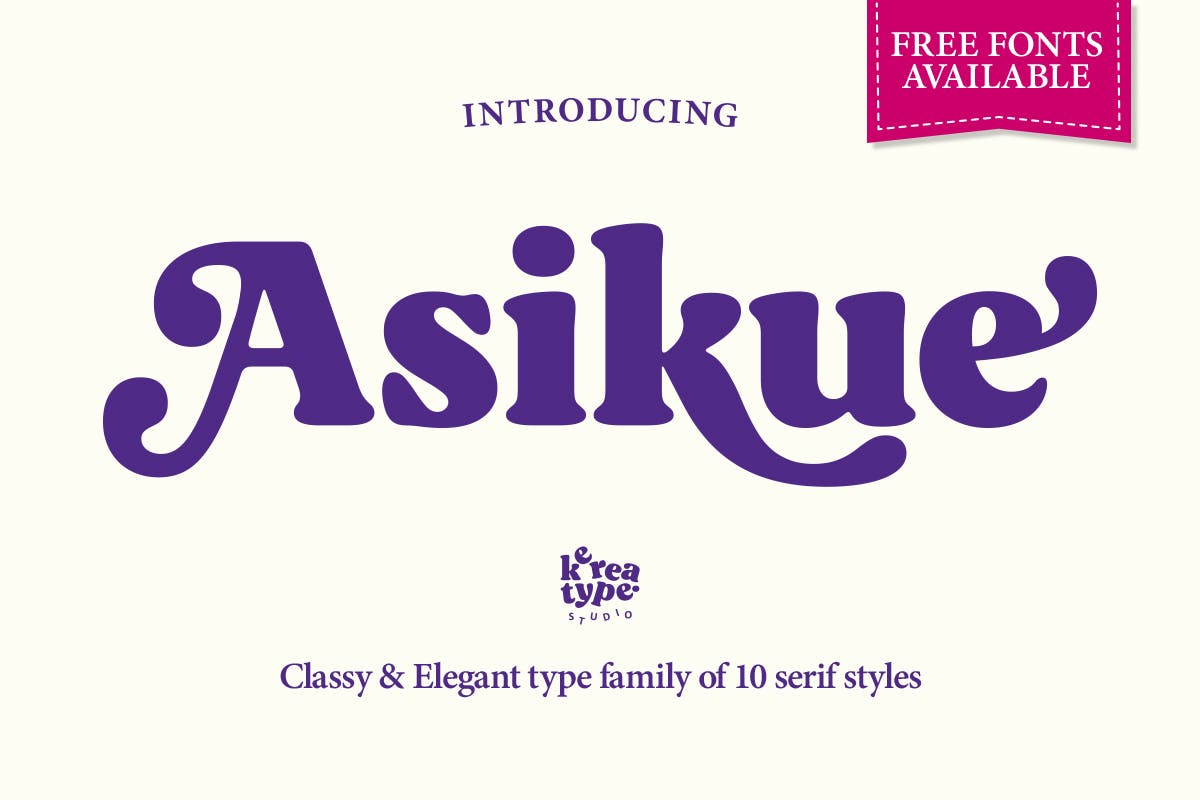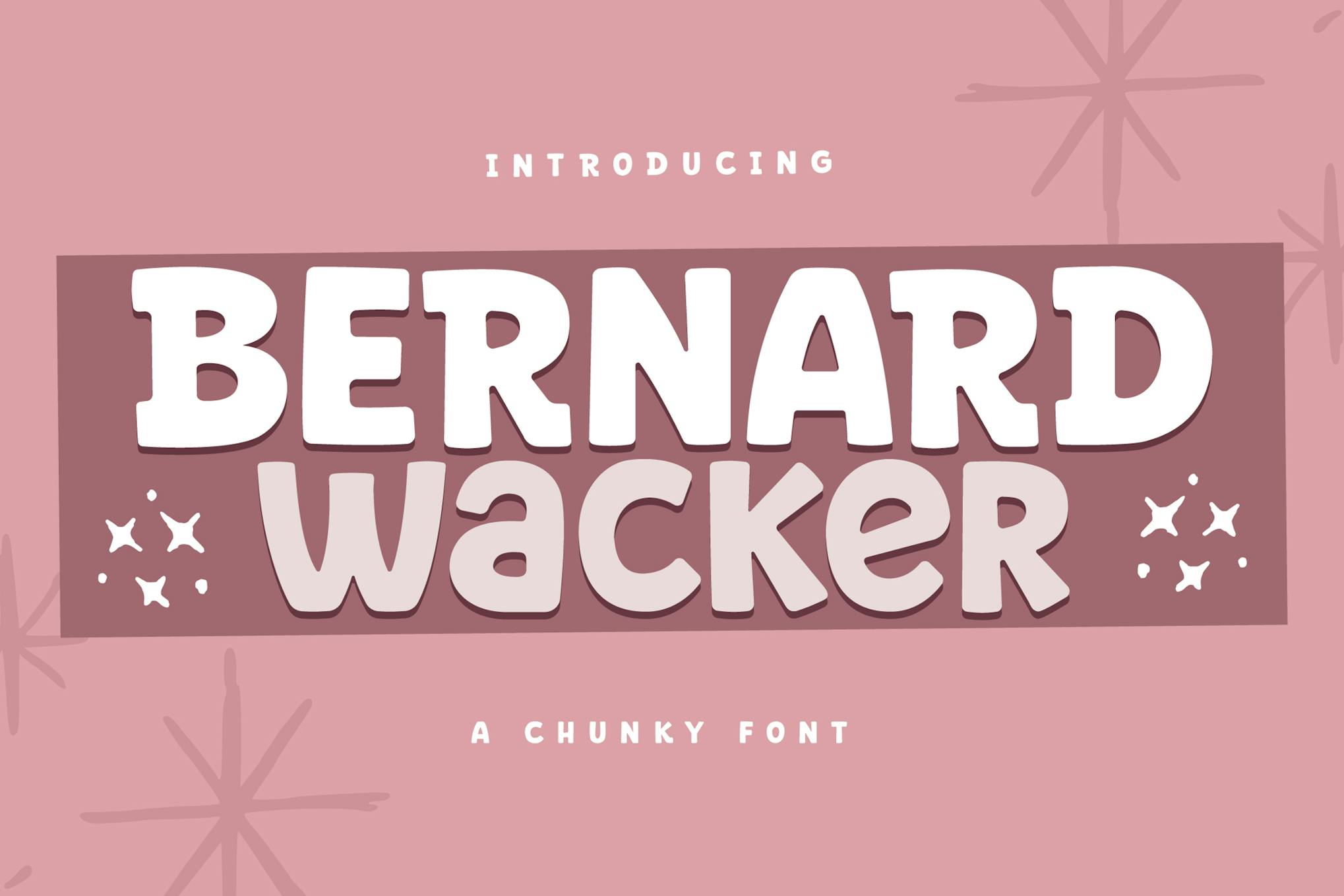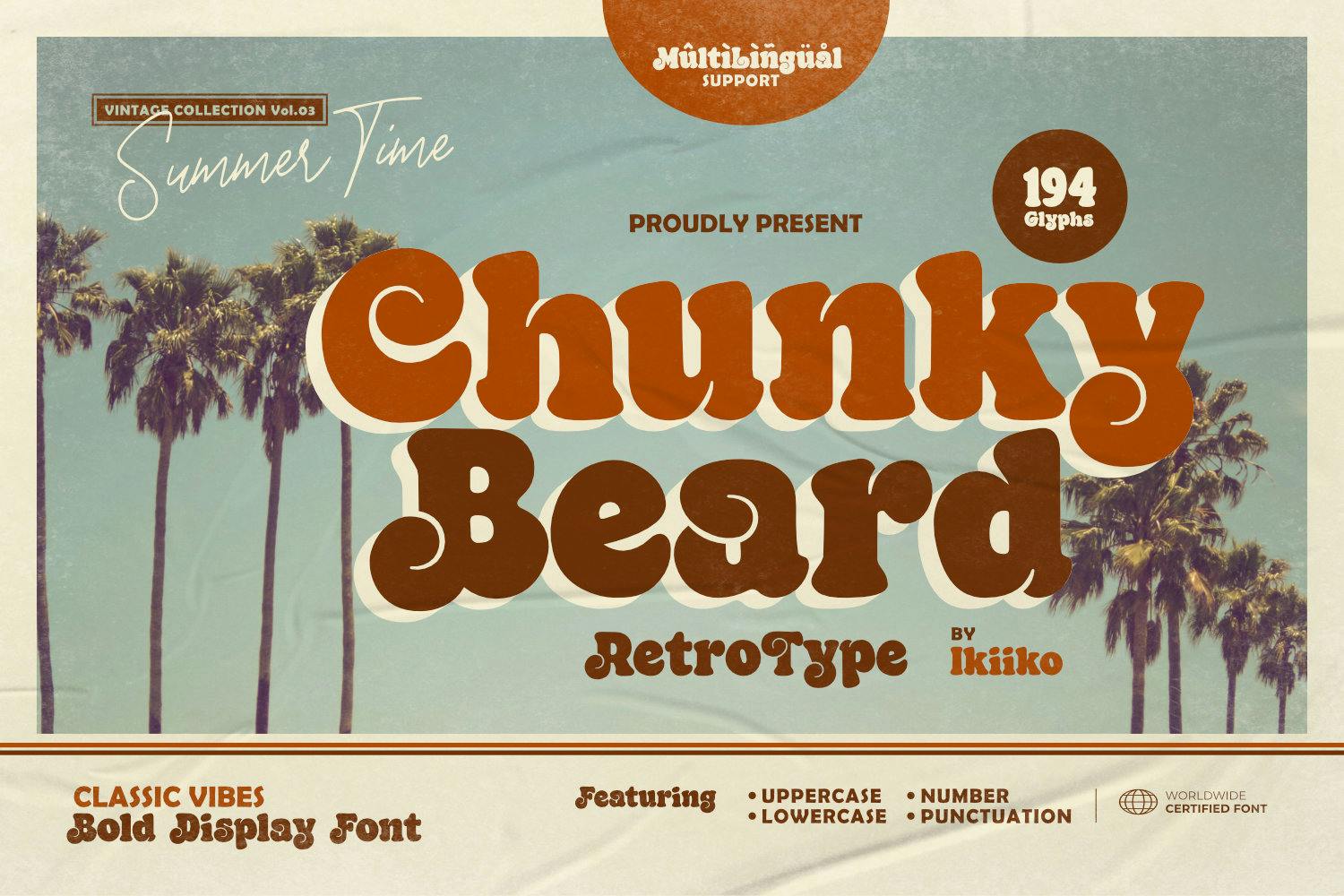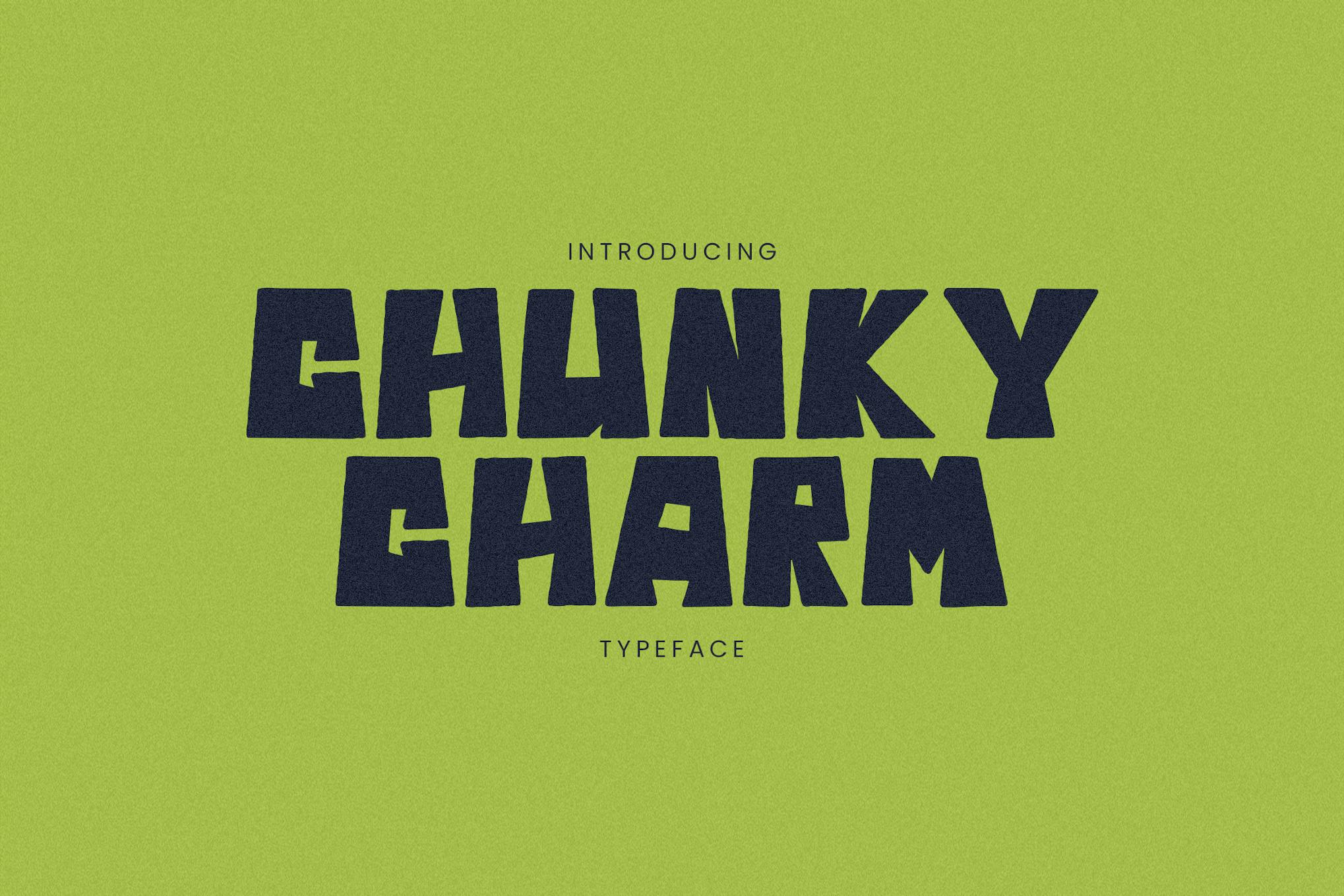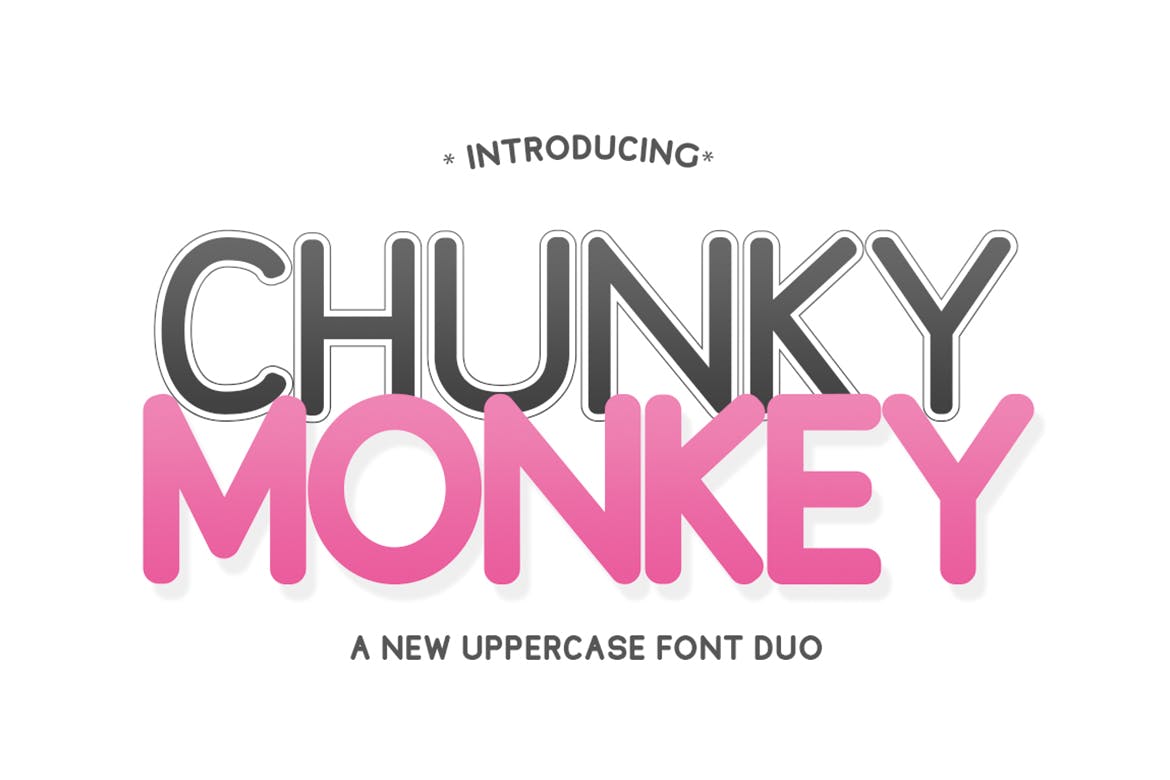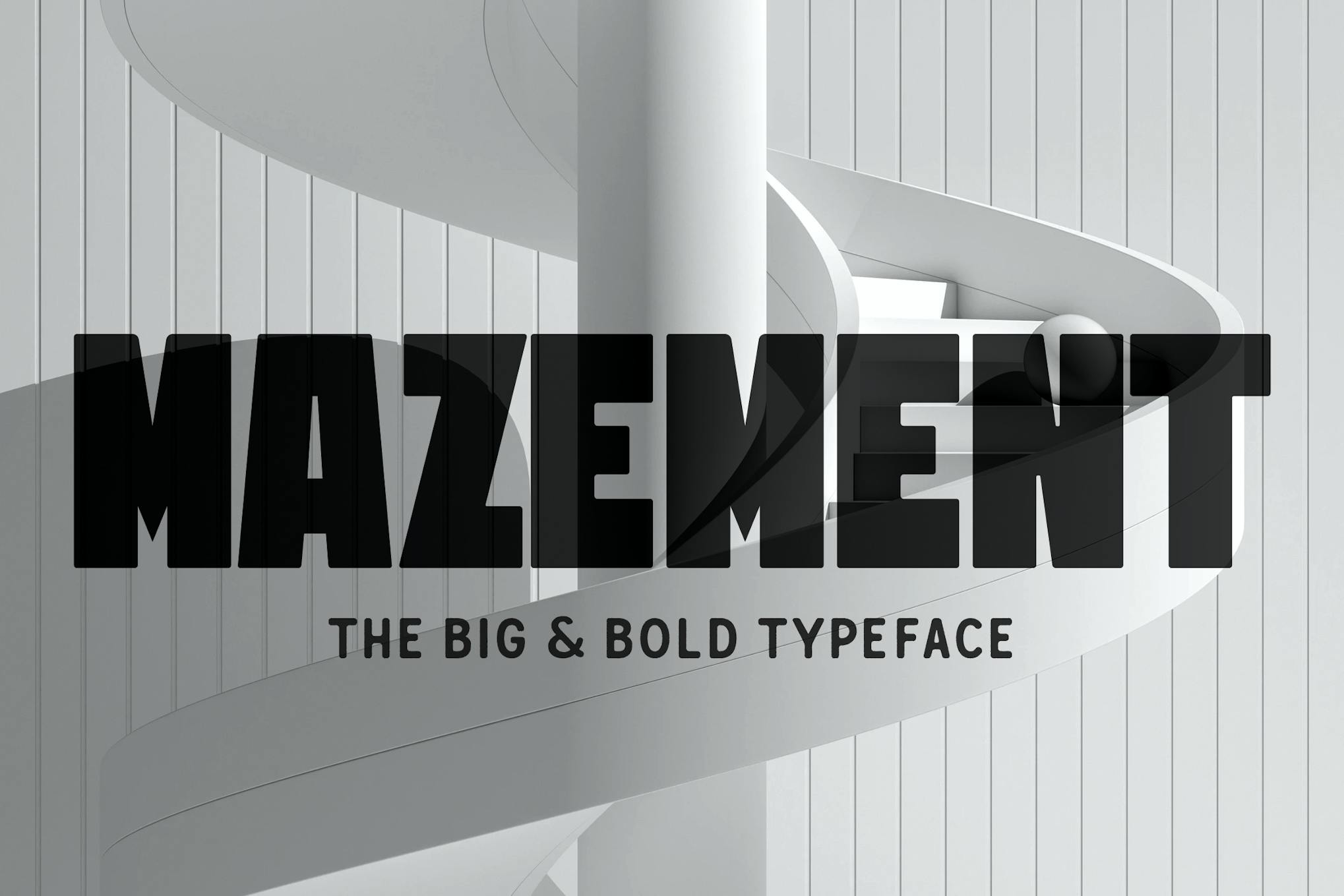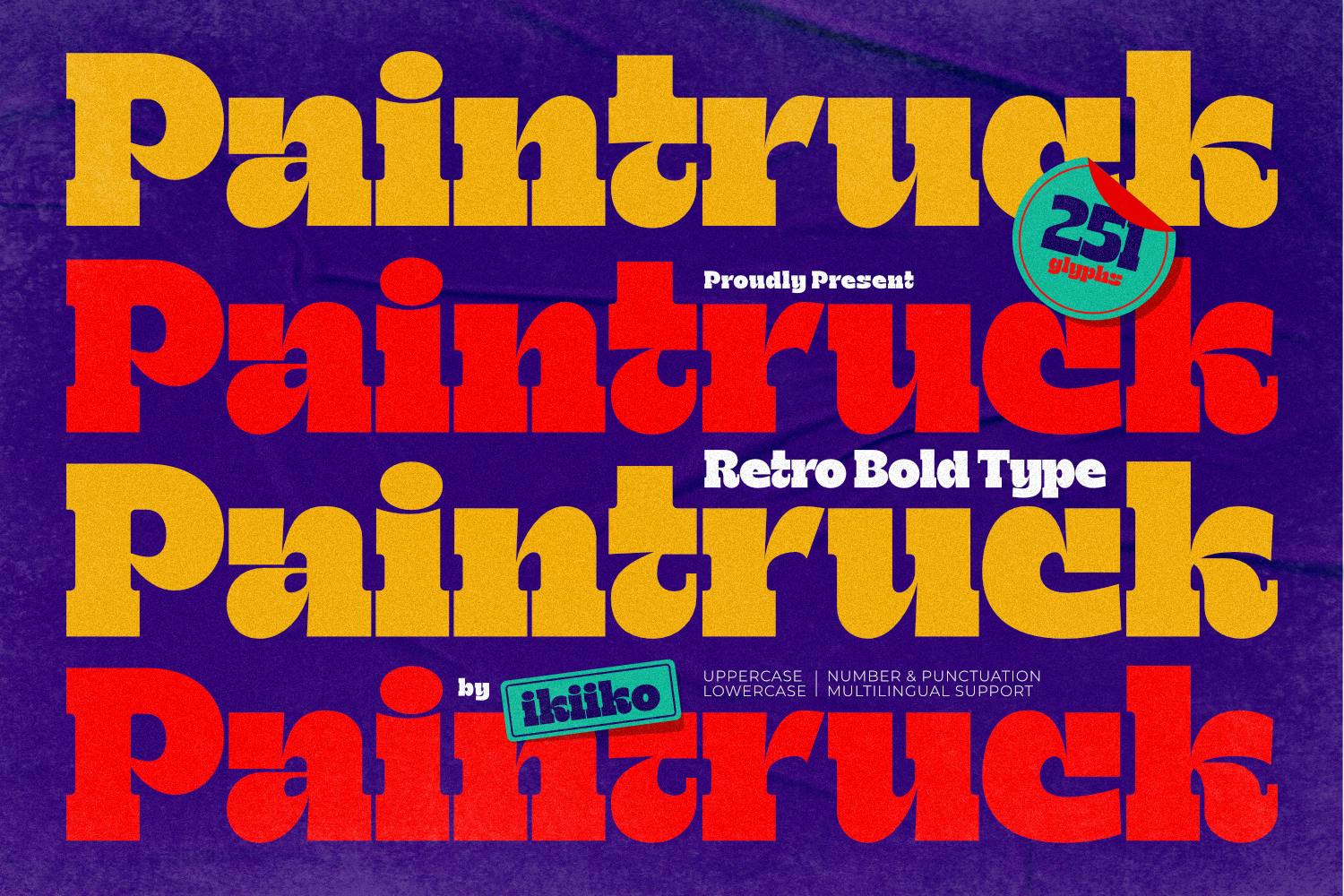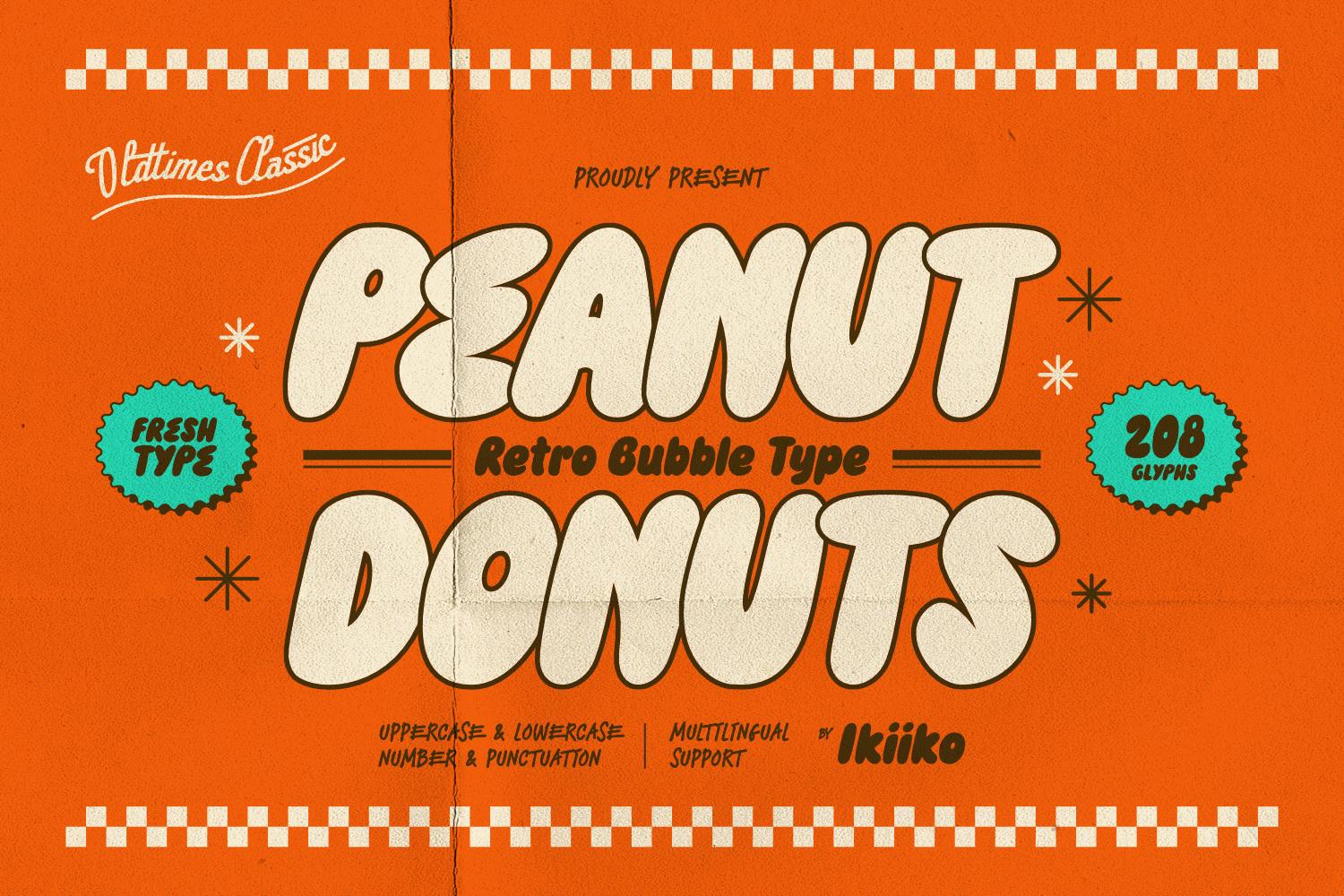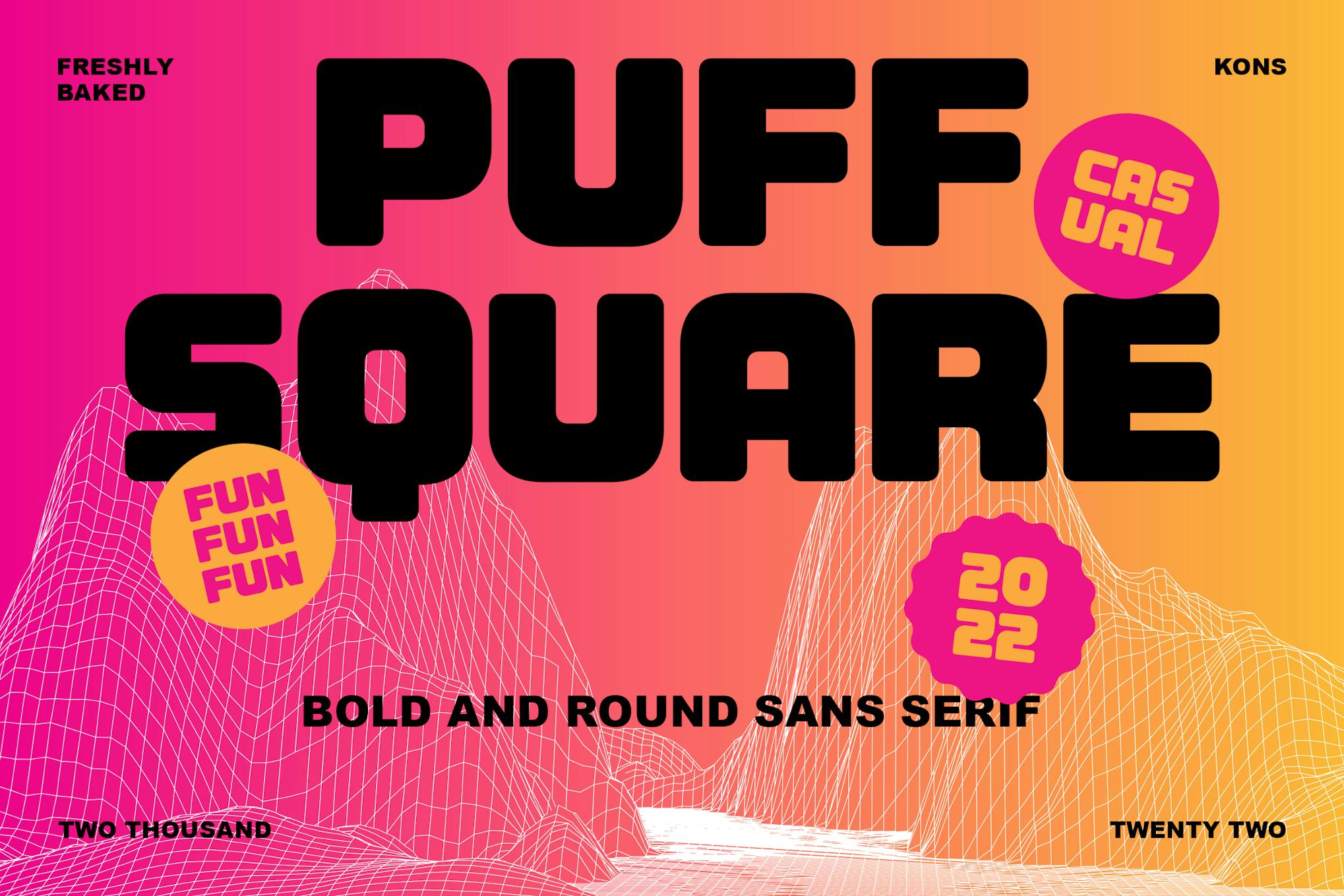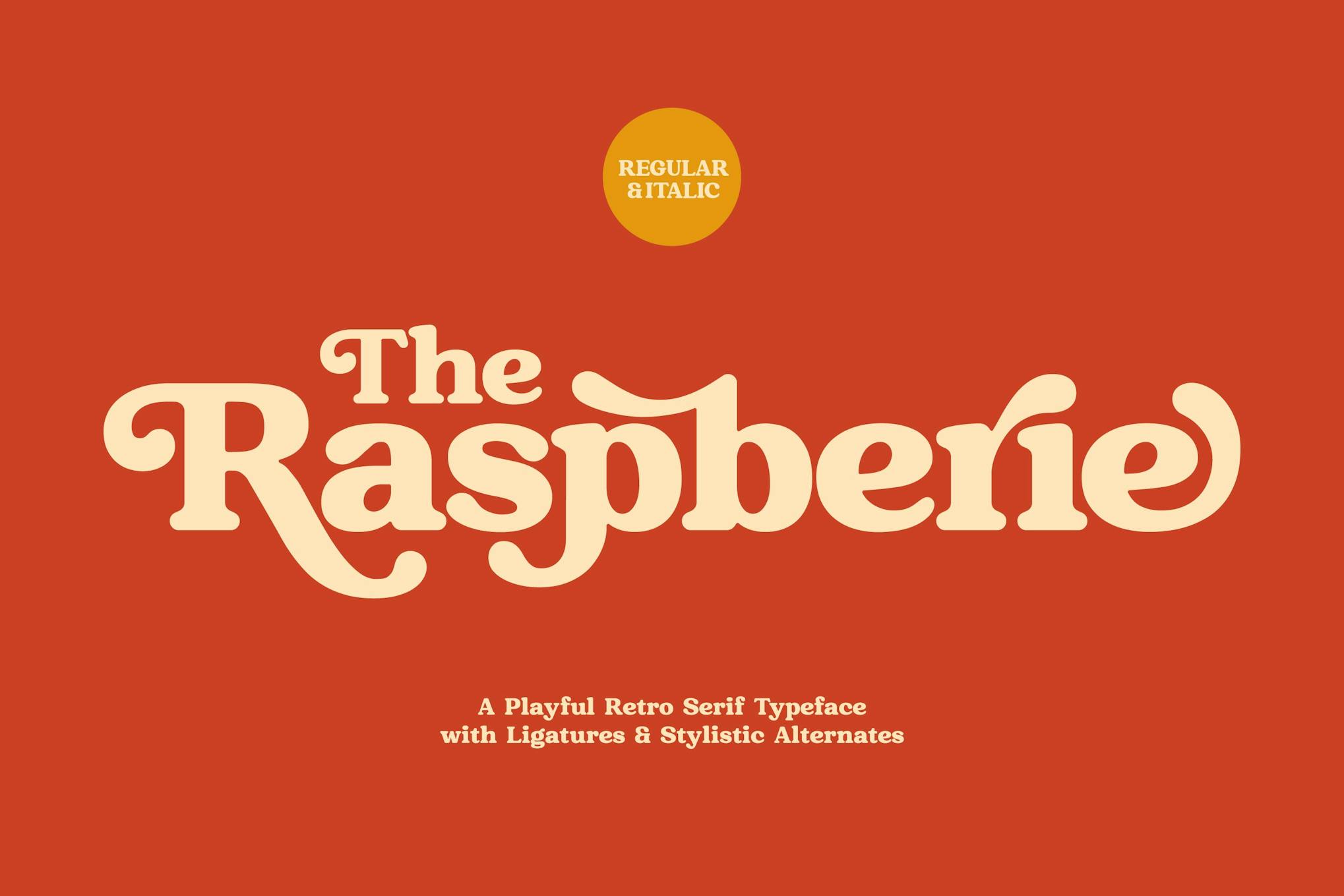
20+ Best Chunky Fonts for Bold, Blocky Type
Immerse and empower your design with a stunning visual punch that promises to captivate any audience. Dive into this remarkable collection of chunky fonts that are as bold as they are beautiful. A curated selection of fonts designed specially for a more blocky type, these typographies can inject an audacious and noticeable appeal into your designs.
These chunky, bold fonts are perfect for creating a striking headline or infusing flair into your branding, posters, logos, and more. Whether you’re looking for something free or considering investing in a more unique option, this list promises to have just the right robust typography you need to make your design pop.
With over 20 distinctive fonts at your disposal, get ready to transform any medium into a powerful message with these stellar assets. So don’t hesitate, start exploring this collection of chunky fonts for bold, blocky type, and elevate your design to the next level.
Chunky Monkey Font
Discover Chunky Monkey, a two-in-one font file offering a versatile twist on your typography. Using uppercase letters reveals a slender, outlined version of the font, while lowercase unleashes a bolder, chunkier style. Ideal for websites, brands, banners, flyers, and more, Chunky Monkey is available in OTF & TTF formats, as well as web-friendly EOT, SVG, WOFF and WOFF2 formats.
Omletta – Chunky Bold Font
Omletta – Chunky Bold Font is a versatile, playful, and eye-catching typeface perfect for any design needs from food product branding to event banners. With its rounded, bold styling, Omletta’s youthful vibe makes a bold and memorable impression, and with support for 60+ Latin-based languages,it’s suitable for international projects. The download comes with 222 glyph, including uppercase, lowercase, numerals, punctuation, alternates, and ligatures in OTF, TTF, WOFF formats.
Chunky Beard – Retro Type
Chunky Beard – Retro Type is a vintage-inspired font created by ikiiko. Reflective of the 60’s era, its bold, rounded letterforms lack clear borders, making them delightfully warm and inviting. Featuring consistent stroke weight and exaggerated curves and serifs, this font captures the unique aesthetic of 60’s typography, perfect for adding a dash of nostalgia to your design project. It offers multilingual support and works on both PC and Mac.
Bernard Wacker Chunky Font
Introducing the Bernard Wacker Chunky Font, a versatile typography asset perfect for enhancing your digital and printed creations. Ideal for use in posters, social media posts, branding, and personal projects, this font adds a bold touch to any design. Provided in OTF, WOFF, and TTF formats, it’s a must-have tool for vibrant and engaging graphics.
Chunky Retro Font
Discover the Chunky Retro Font – a modern take on classic styles, with smooth, rounded corners and a neat, clean-cut design. This pack also includes shadow and outline fonts to refine your projects. From upper and lowercase letters to numbers, punctuation, and multilingual support, it’s perfect for any creative endeavor. Use it for logos, packaging, headlines, apparel, posters, and more to add a retro touch.
Chunky – Comic Book Font
“Chunky – Comic Book Font” is a dynamic asset optimal for various designs like fashion, branding, and catalogs. It features uppercase, lowercase, symbols and supports multiple languages. This font stands out with its unique ligatures, stylistic alternates, and overall versatility, adding a flair to any design project.
Softglobe – Bold & Chunky Typeface
The Softglobe typeface is a bold and chunky font style that infuses joy into children’s themed applications. It works best in kid-oriented books, toys, packaging, films, and theme parks. With this typeface, you’ll receive Softglobe Fill and Softglobe Outline in several file types (OTF, TTF, WOFF, WOFF2), covering both uppercase and lowercase letters plus punctuation and numbers.
Raspberie – Retro Modern Font
Raspberie is a retro-modern font with a unique combination of style and versatility. Conceived with a nod to classic design, this font features over 300 glyphs, 98 stylistic alternates, and 23 ligatures. It’s ready for use in various media from posters to packaging, branding and more. Available in both regular and italic styles, Raspberie is a dynamic asset for upgrading your design creativity.
Zilla – Chunky Display
Zilla – Chunky Display is a strikingly bold typeface, perfect for attention-grabbing headlines and covers, as well as brand packaging. Its thickness adds a quirky appeal, while its regular and rounded versions deliver versatility for your creative pursuits. Utilize Zilla to bring playfulness to your social media, book designs, stationary and thumbnails. Enjoy creating expressive and enchanting designs with this unique font.
Mazement Blocky Font
Mazement Blocky Font is a distinctive typeface offering over 300 bold glyphs and broad Latin language support. Its chunky, heavy style is designed to command attention and fill space effectively. Perfectly suited for headline displays, Mazement truly comes alive when used in larger-size, reinforcing the idea that bigger is indeed better.
Chunky Carm Typeface
The Chunky Carm typeface is a versatile display font perfect for contemporary applications like blog and web design, or modern invitation cards. Provided in OTF, TFF, WOFF formats and inclusive of uppercase and lowercase characters, this third-party asset will refresh your work presentations. Note, images are preview only. Enjoy this engaging, innovative font!
Rolla – Soft Vintage Typeface
Rolla is a unique, vintage style serif font with character. It boasts bold, rounded edges and curves that give a nod to retro typography, making it a perfect choice to infuse your design projects – from posters and business cards to wedding invitations and social media posts – with a nostalgic feel reminiscent of the ’60s and ’70s era.
Peanut Donuts – Retro Bubble Font
Proudly introduced by ikiiko, Peanut Donuts – Retro Bubble Font is a meticulously crafted typeface that encapsulates the nostalgia of yesteryears. Perfect for vintage products, this font merges seamlessly with packaging, labeling, and advertising, providing a delightful nostalgic appeal. With its round corners and bubbly shapes, it’s perfect for retro posters, children’s books, and food packaging. It offers uppercase, lowercase, numbers, punctuation, and multilingual support in both TTF and OTF formats.
Tholoes Display Sans
Tholoes Display Sans is a bold and dynamic font that adds a confident touch to your designs. Perfect for branding, logos, posters, and social media, this font demands attention and ensures you leave a lasting impression. It supports a wide range of uppercase, lowercase, numeral, punctuation, and multilingual characters. File formats include Otf, Ttf & Woff. The font is compatible with multiple languages, from Afrikaans to Zulu.
Rugfish – Playful Blocky Font
Delight in Rugfish, a vibrant, playful blocky font perfect for lively headers that captivate the eye. Designed with a slightly childish touch, it can be used inventively, like incorporating multi-colored letters or pattern fillings. This versatile font works seamlessly for logo, emblem, or package design, and is particularly suited for any children’s product design. Enjoy letting your creativity loose with Rugfish!
Colombo Sans Font
Meet the Colombo Sans Font, a one-of-a-kind asset that skillfully marries function and style. Uniquely versatile, this font shines when used standalone, in block text or as a design accent. The package includes OTF and TTF formats, web fonts, and guarantees an instant download and free updates. It’s a creative tool designed to uplift your project while providing excellent legibility.
Mindflow – Fat Display Font
Mindflow is a vibrant, chunky display font characterized by its bold design and unpredictable curves. Evoking the playful elegance of the 1970s psychedelic movements, it breathes a modern yet nostalgic charm into any project. Its handcrafted appearance and versatility make it perfect for packaging, posters, logos, and personal identity designs. With features like uppercase, punctuation, alternates, numerals, and support for over 60 Latin-based languages, Mindflow simply lets your creativity thrive.
Malrin Typeface
Malrin Typeface, inspired by the chunky “fatface typeface”, has a vibrant retro appeal with a touch of the psychedelic. With over 180 alternative characters and several ligatures, this font is perfect for use in logos, headlines, and large-scale typography. Provided in four formats (OTF, TTF, WOFF, WOFF2), it’s best used with software that supports OpenType features and Glyphs panels.
Asikue Font
Asikue Font is a soft serif typeface inspired by the chunky, retro typography of the ’70s. Boasting 10 distinct styles from regular to extra bold, each with a corresponding oblique style, Asikue is a versatile option for various text arrangements. With options for uppercase and lowercase, stylistic alternates, ligatures, numerals, punctuation, multilingual accents, and support for over 100 languages, Asikue is a capable tool for any design project.
Puff Square – Casual Fun Display Fonts
Puff Square is a delightfully bold, chunky sans-serif display font. Its rounded corners add a playful, casual touch that can effortlessly enhance your visuals. Ideal for those looking to inject a touch of fun into their aesthetic, this font makes a vibrant statement without overpowering your design. Notably, this creative asset is offered by a skilled third-party provider.
Paintruck – Retro Bold Font
Paintruck – Retro Bold Font by ikiiko is a vivacious and bold vintage typeface that adds pop-retro flair to your projects. Offering multilingual support, uppercase, lowercase, as well as number and punctuation symbols, this font is versatile, fresh yet nostalgic. Ideally suited for retro posters, branding, packaging, social media images, magazine designs, and quote overlays, it’s compatible with both PC and Mac.